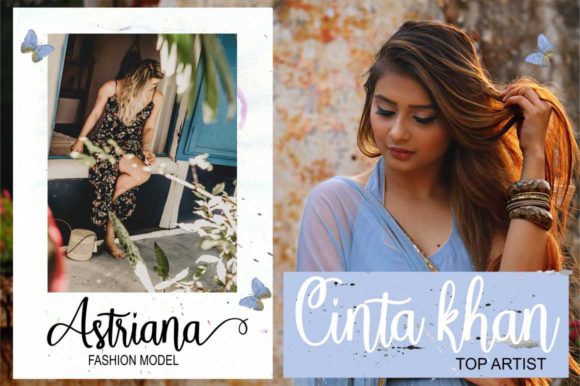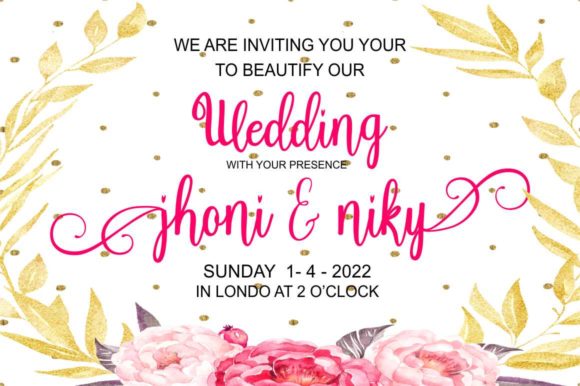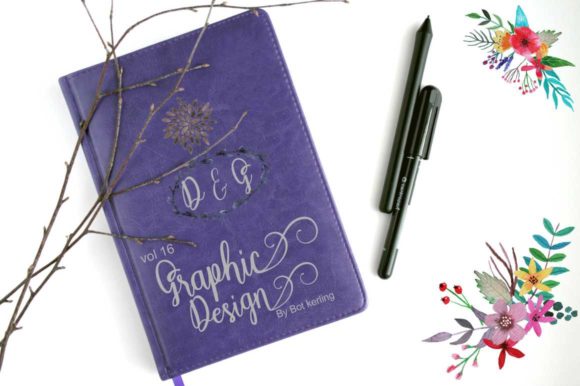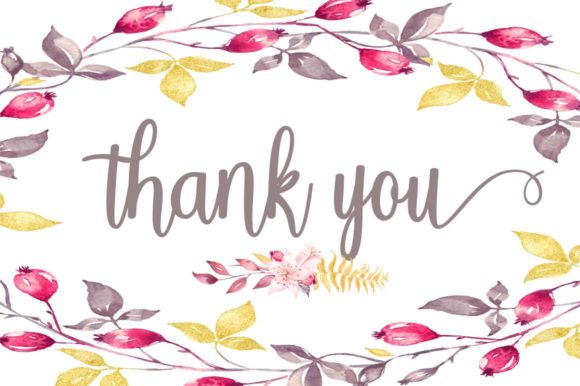
Adelia Pasha Font
About Adelia Pasha Font
Adelia Pasha is a unique script with a playful feel. Get inspired by its modern vibe, and turn any design project into a true standout!